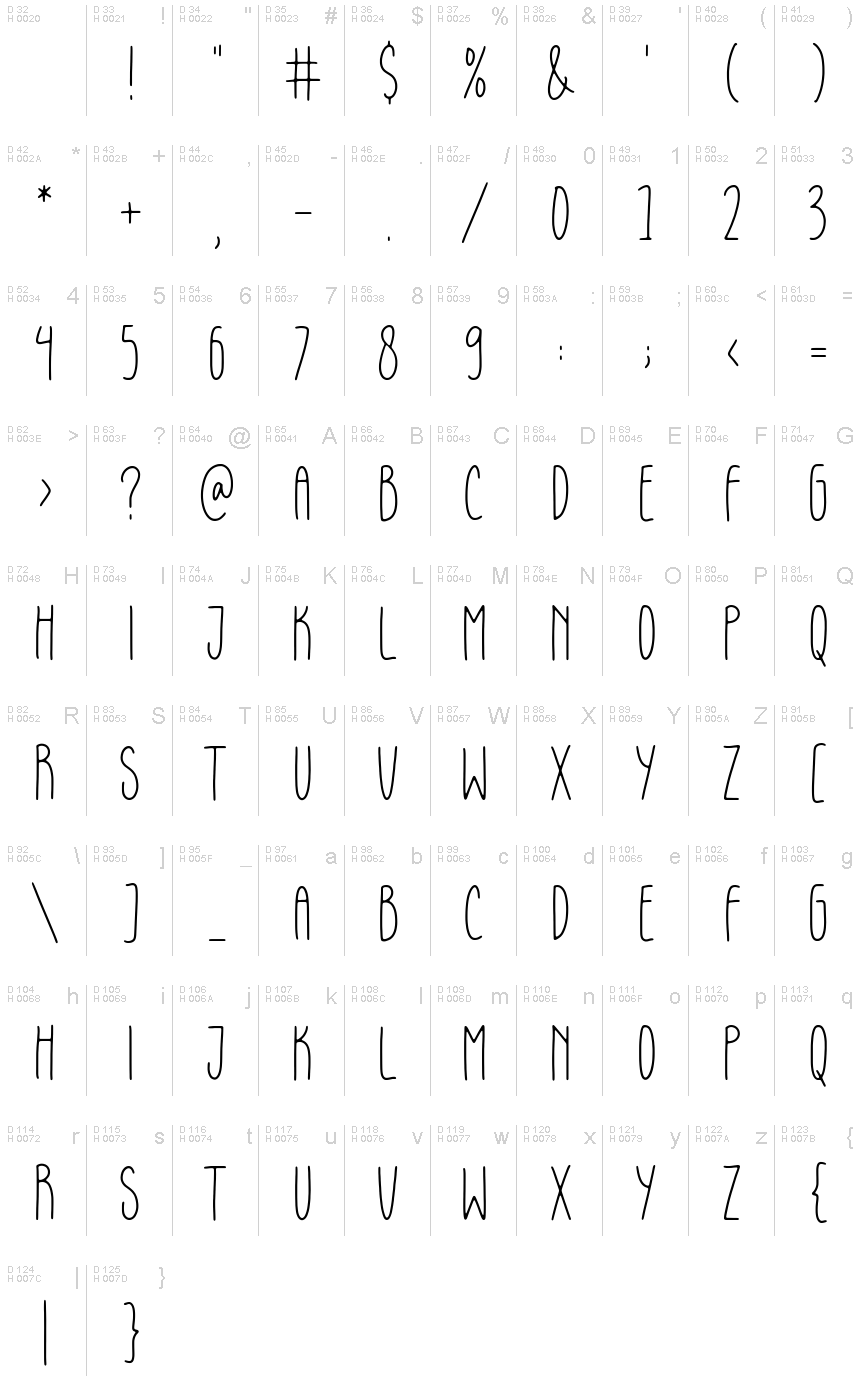
Gloomie Sunday
Gloomie Sunday font by Balpirick Studio captures the informal, playful essence of a light handwritten style. This tall, narrow design with rounded edges exudes a low-contrast charm, perfectly balancing casual elegance and cheeky playfulness in every stroke. Mirroring the personal touch you seek; this font visually communicates that it's more than just a typographical choice-it's a statement.